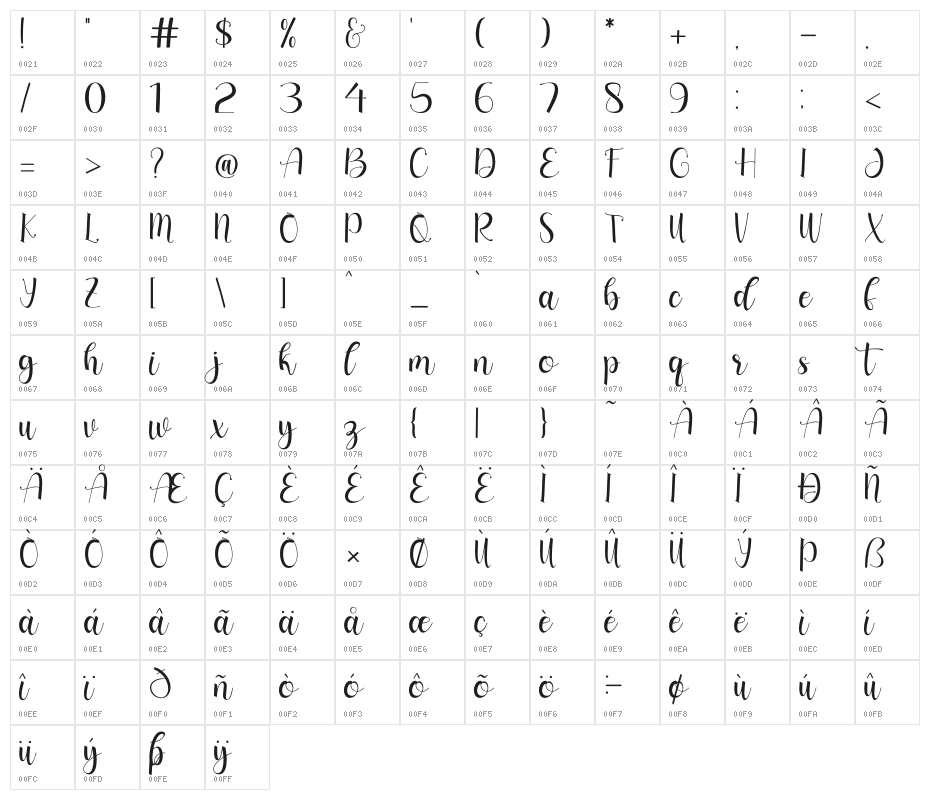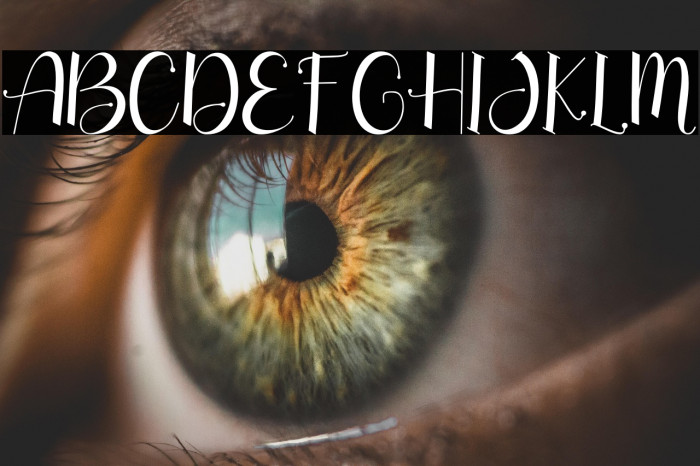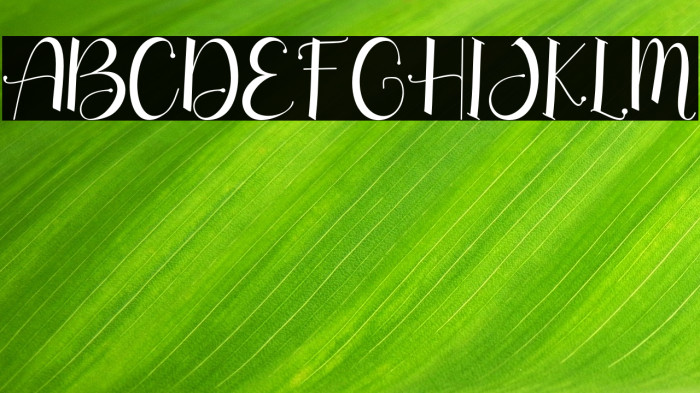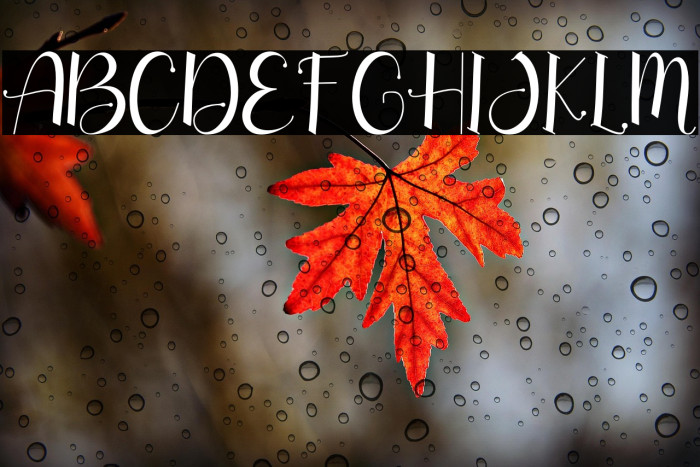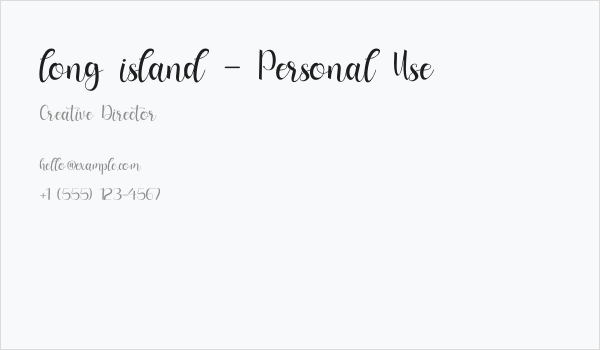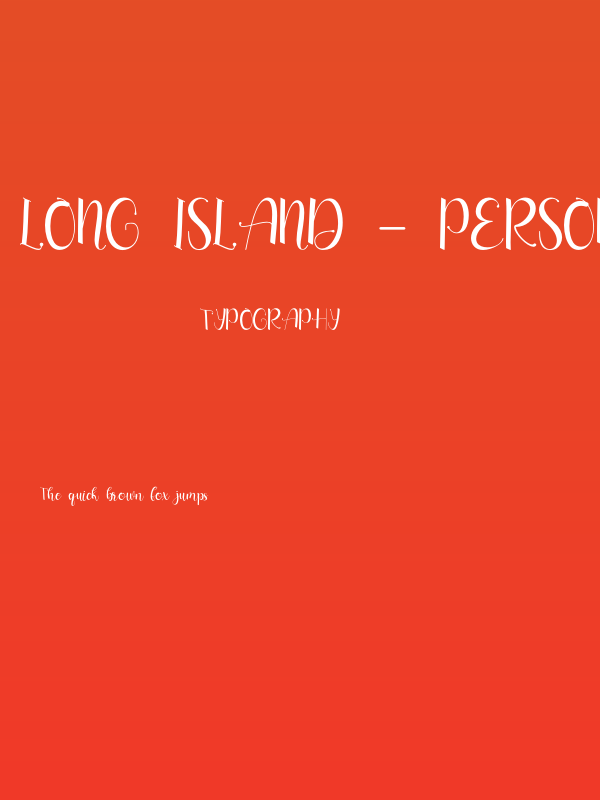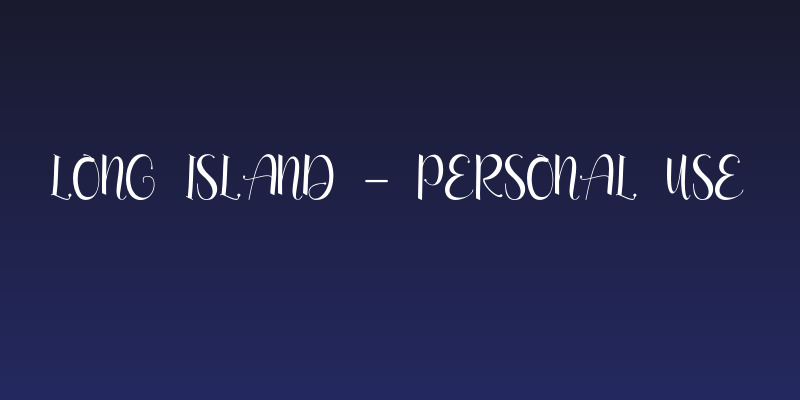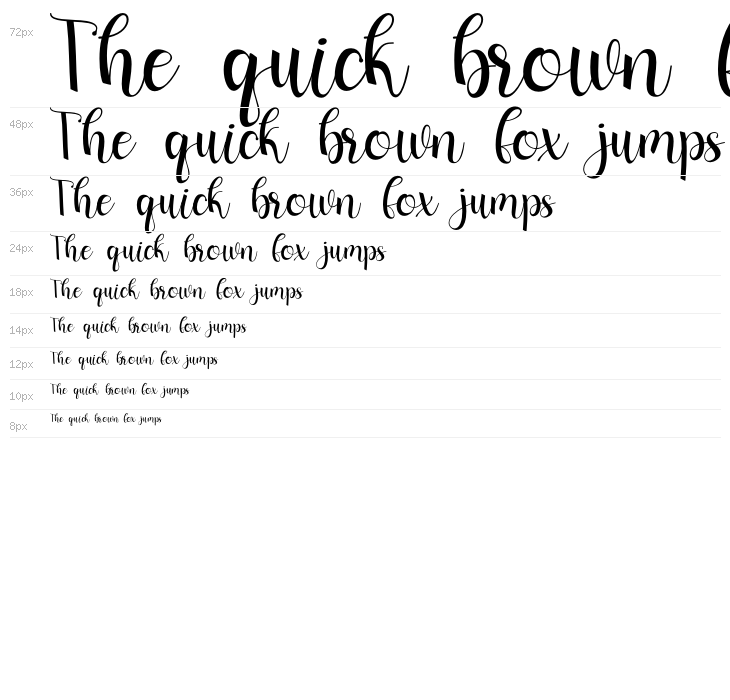
long island - Personal Use Font
long island - Personal Use Description
This font features a lively and elegant script style, characterized by its flowing, cursive letterforms. The uppercase letters are bold and dynamic, with a slight slant and decorative flourishes that add a touch of sophistication. The lowercase letters maintain a consistent style, with smooth curves and a playful yet refined appearance. The numbers are equally stylish, with a consistent weight and a slight tilt that complements the overall aesthetic. Special characters are designed to match the script's fluidity, ensuring a cohesive look across all text elements. This font's unique style makes it suitable for creative and expressive design projects.